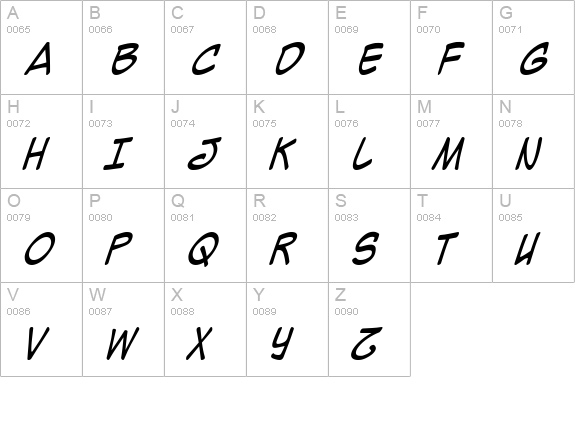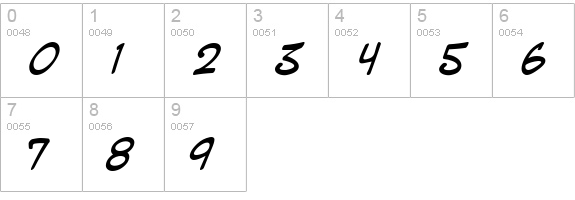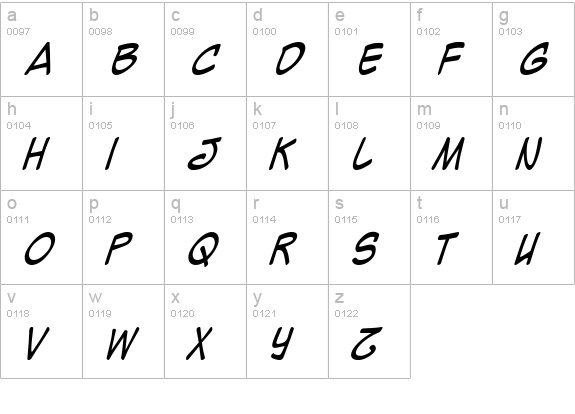
Mighty Zeo Caps 2.0 Italic is a distinctive, italic variant in the Mighty typeface family \xE2\x80\x94 well suited to design and typography projects.
Introducing the powerful and versatile Mighty Zeo Caps 2.0 Italic font! This bold and dynamic typeface is perfect for making a statement in your designs. With its sleek and modern aesthetic, it adds a touch of sophistication to any project. Whether you're working on branding, advertising, or editorial design, Mighty Zeo Caps 2.0 Italic font is sure to elevate your work to the next level. And the best part? It's free to download at FontsMarket.com! Take advantage of this amazing opportunity to enhance your creative projects with the Mighty Zeo Caps 2.0 Italic font. Don't miss out on this incredible offer to access a high-quality font for free. Download now and let your creativity shine with Mighty Zeo Caps 2.0 Italic font!